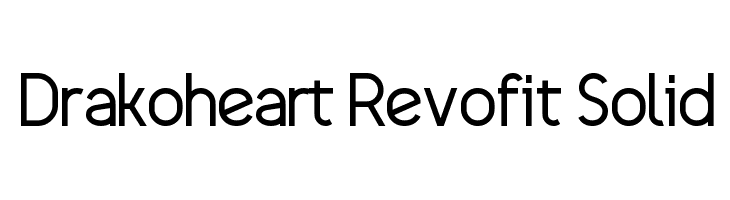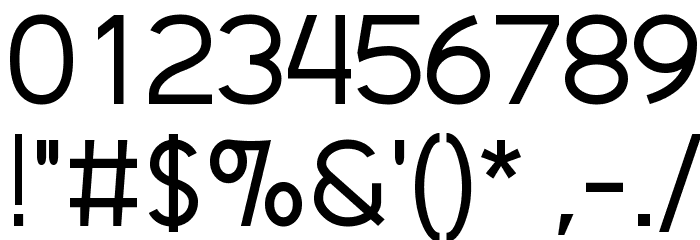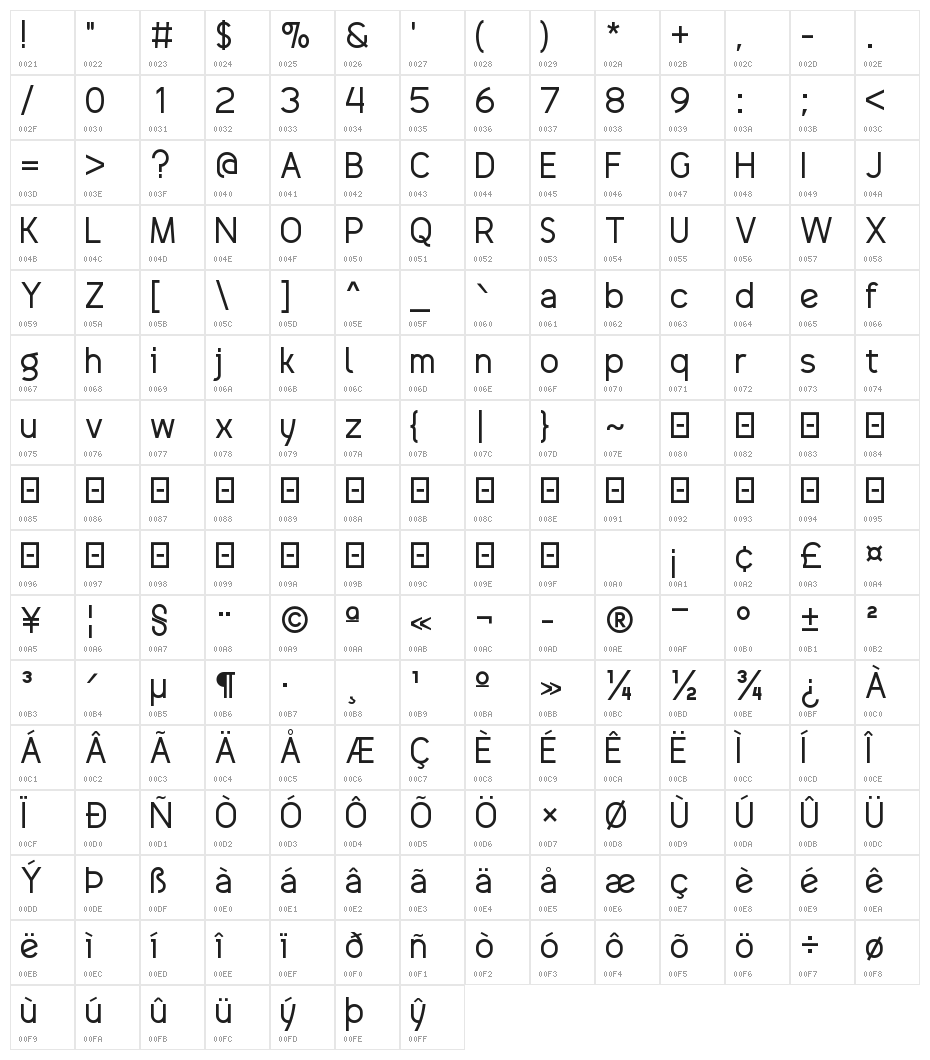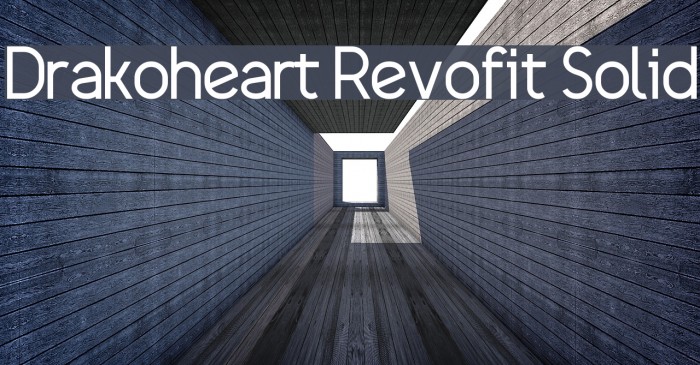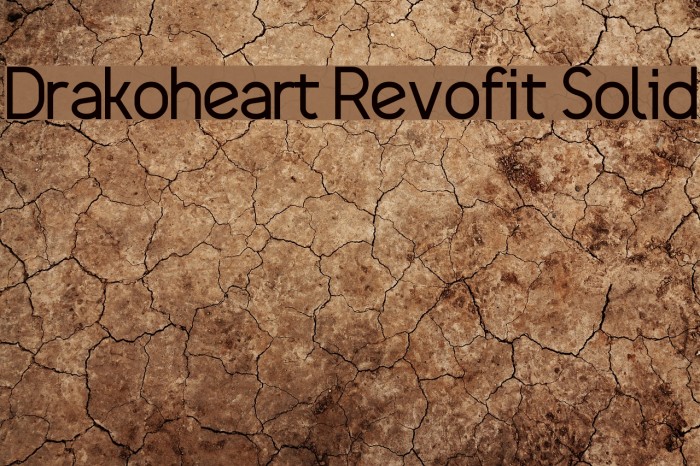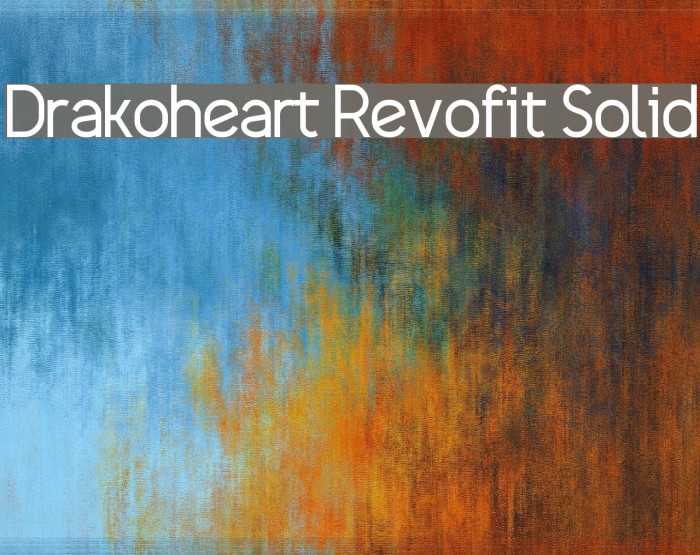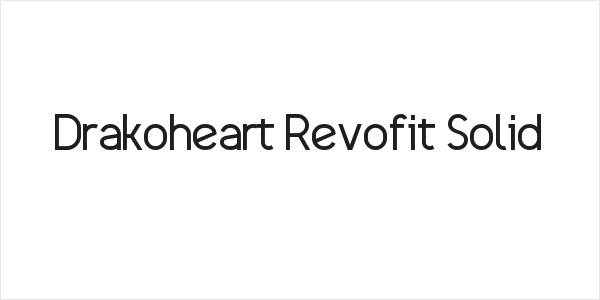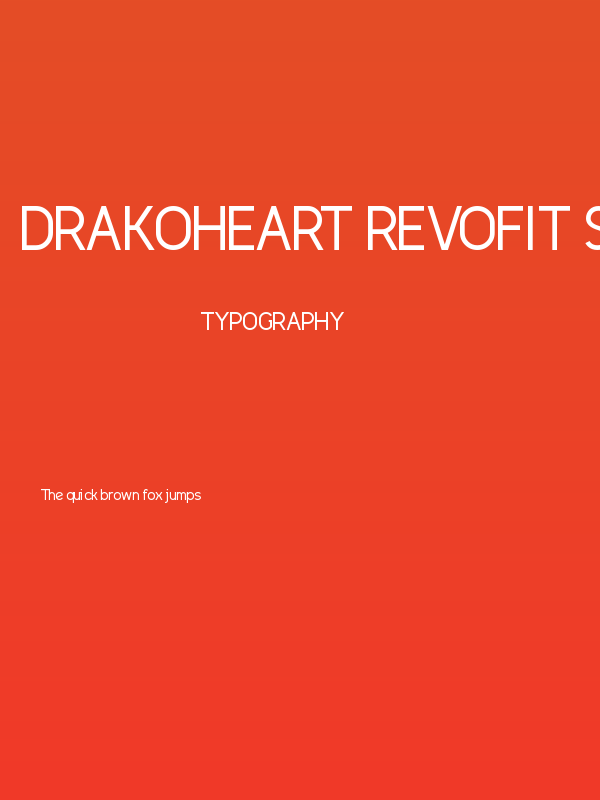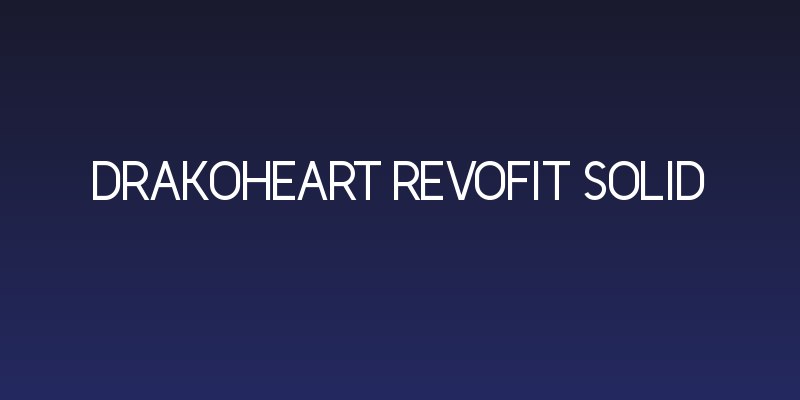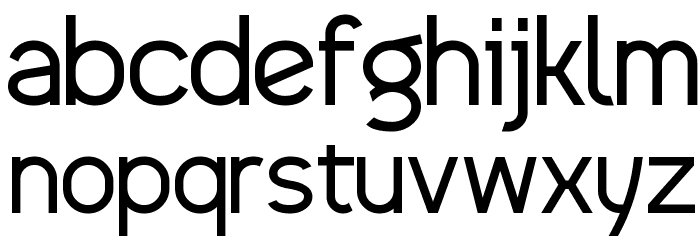
Drakoheart Revofit Solid Font
Drakoheart Revofit Solid Description
This font features a clean and modern sans-serif style with a geometric structure. The characters are well-proportioned, offering a harmonious balance between straight lines and subtle curves. The uppercase letters are bold and assertive, while the lowercase letters maintain a friendly and approachable appearance. The numerals are clear and legible, making them suitable for various applications. Special characters are included, providing versatility for different design needs. The overall design is sleek and contemporary, making it ideal for digital and print media.